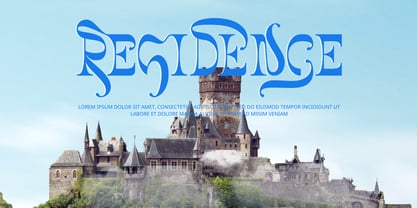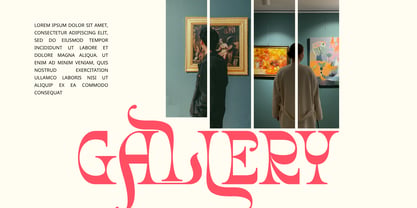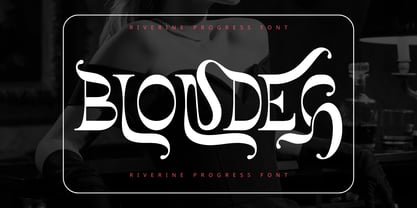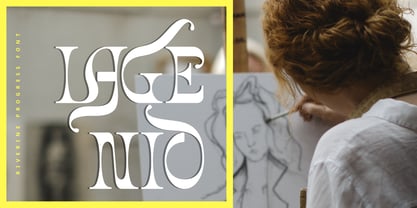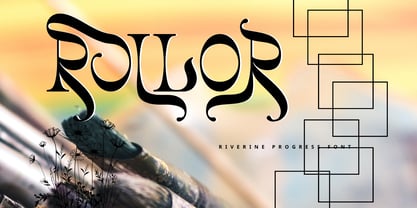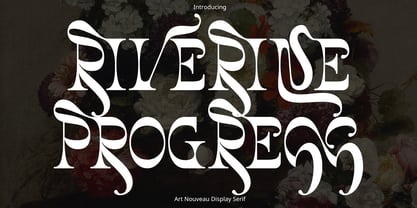
Riverine Progress
La familia tipográfica Riverine Progress fue diseñada por 177Studio y publicada por 177Studio. Riverine Progress contiene 2 estilos y opciones de paquete familiar. Más información sobre esta familia
Riverine Progress - Modern Serif Font is an expressive decorative serif typeface where classic elegance meets artistic experimentation. Inspired by the graceful spirit of Art Nouveau and contemporary editorial typography, it features dramatic stroke contrast, sculptural letterforms, sweeping curves, and beautifully extended swashes that give the alphabet a distinctive sense of movement and personality. Elegant serifs are combined with flowing terminals and unexpected ornamental details, creating compositions that feel sophisticated, romantic, and visually captivating.